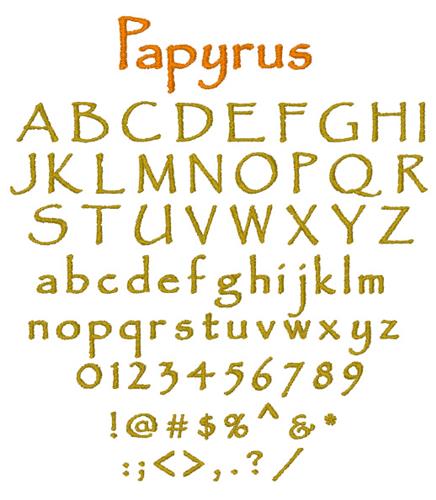
Internet Stitch is happy to present Papyrus machine embroidery font which has Artistic and flowing machine embroidery font, ideal for use on decorative cushions or scrapbook covers. The word 'PAPYRUS' presents a hand-drawn appearance. Available in ART, DST, EMD, EXP, HUS, JEF, PCS, PEC, PES, SEW, VIP, and XXX formats. included. If you would like to view more embroidery fonts and alphabets please search our embroidery fonts page.